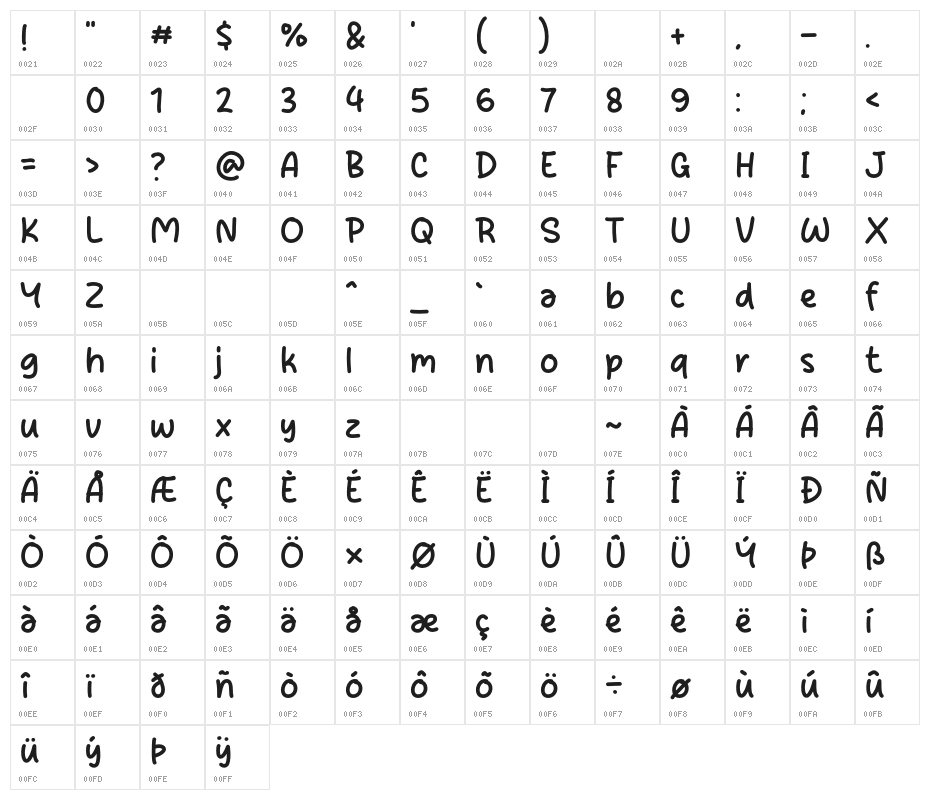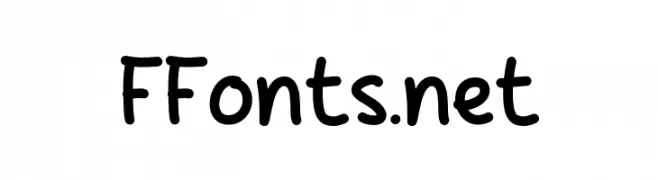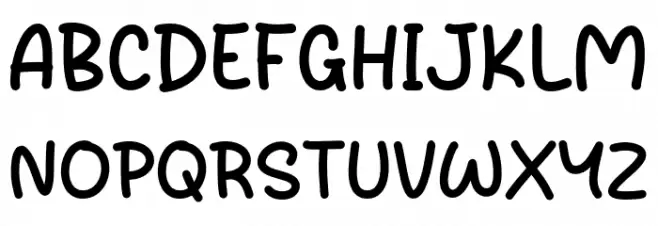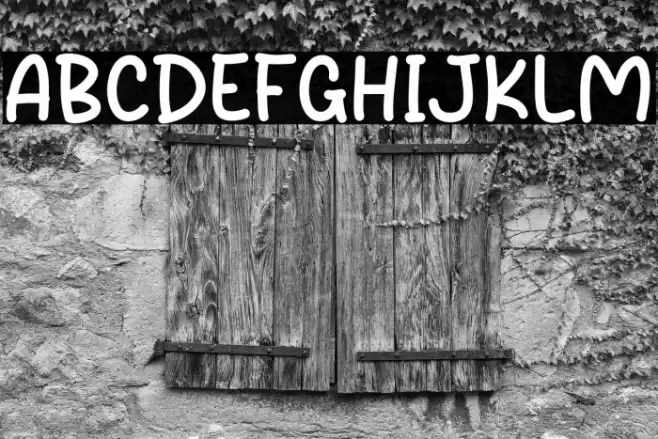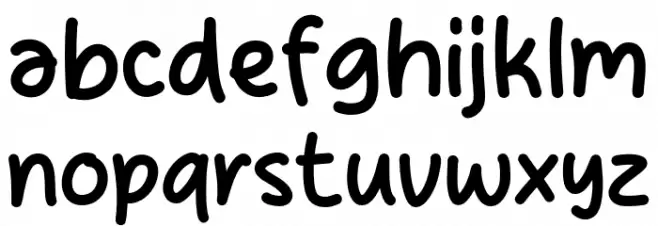
Sugar Crush Font
Sugar Crush Description
A playful, rounded handwritten style font with a casual and friendly appearance.
| Overall Style | Casual, Friendly, Playful |
| Use Case | Headlines, Body text, Logos, Invitations |